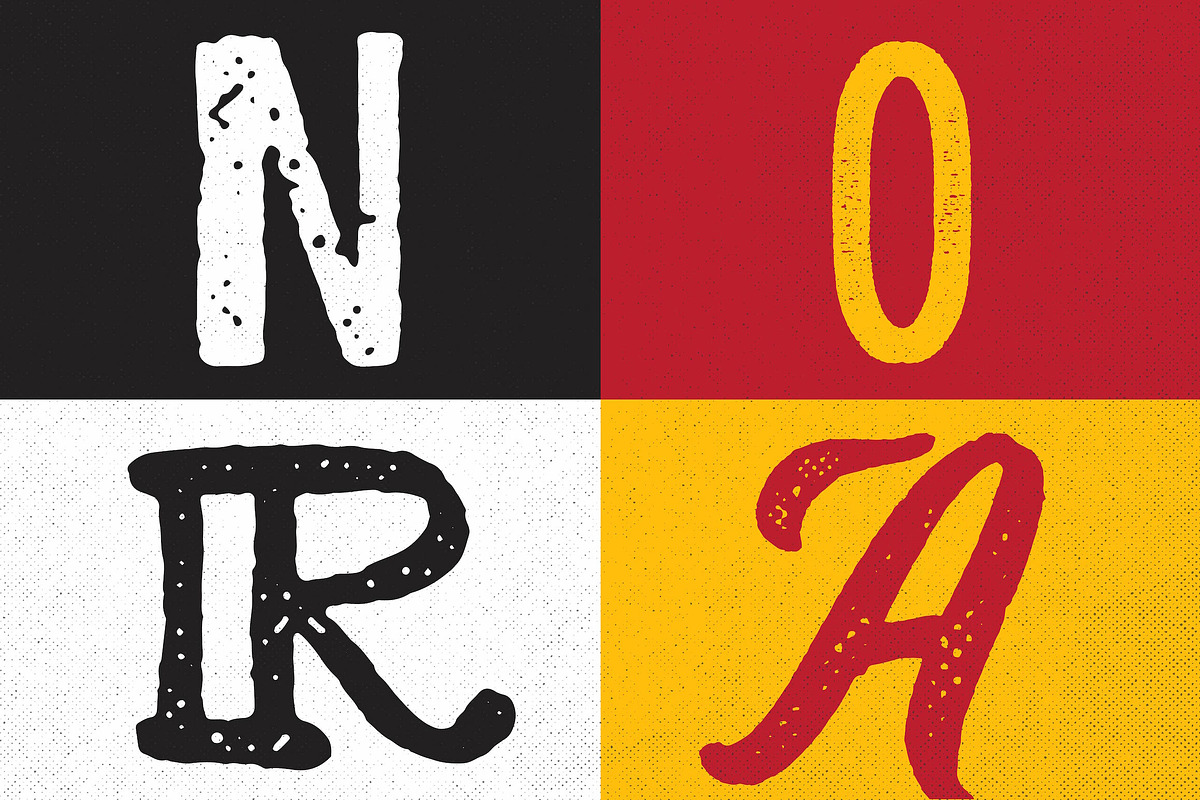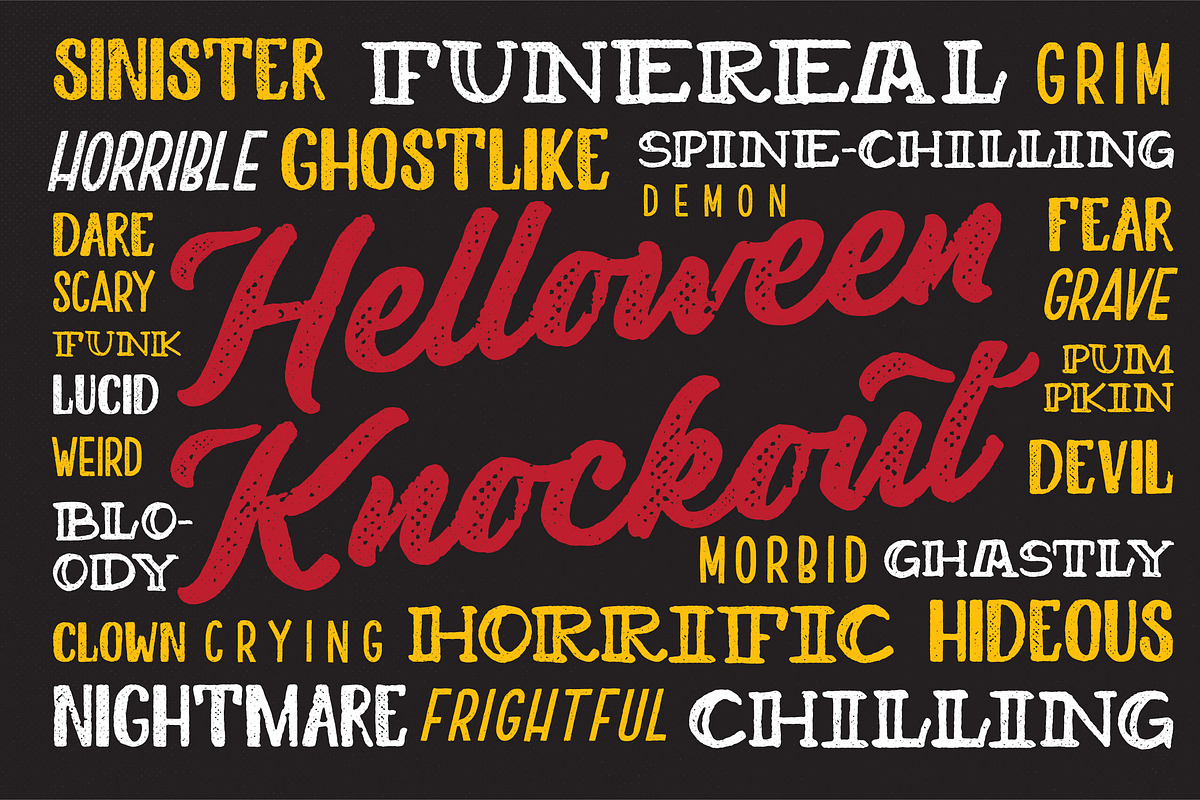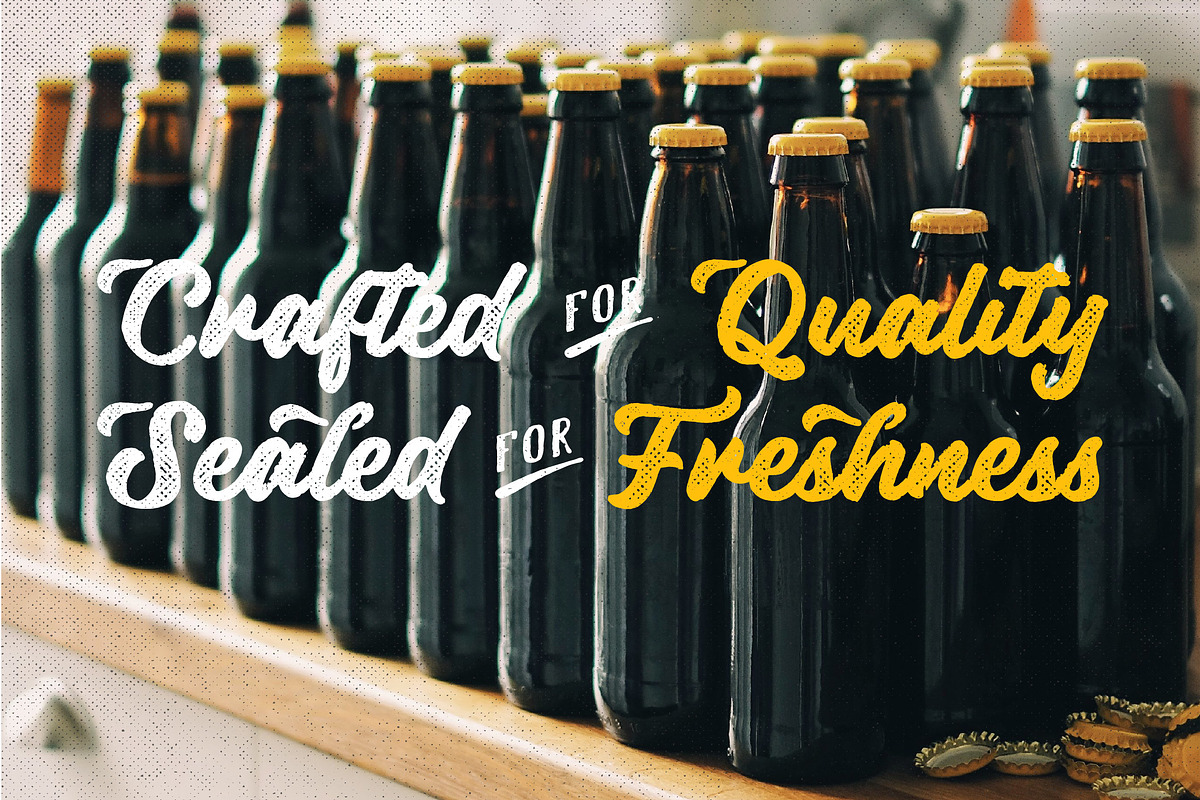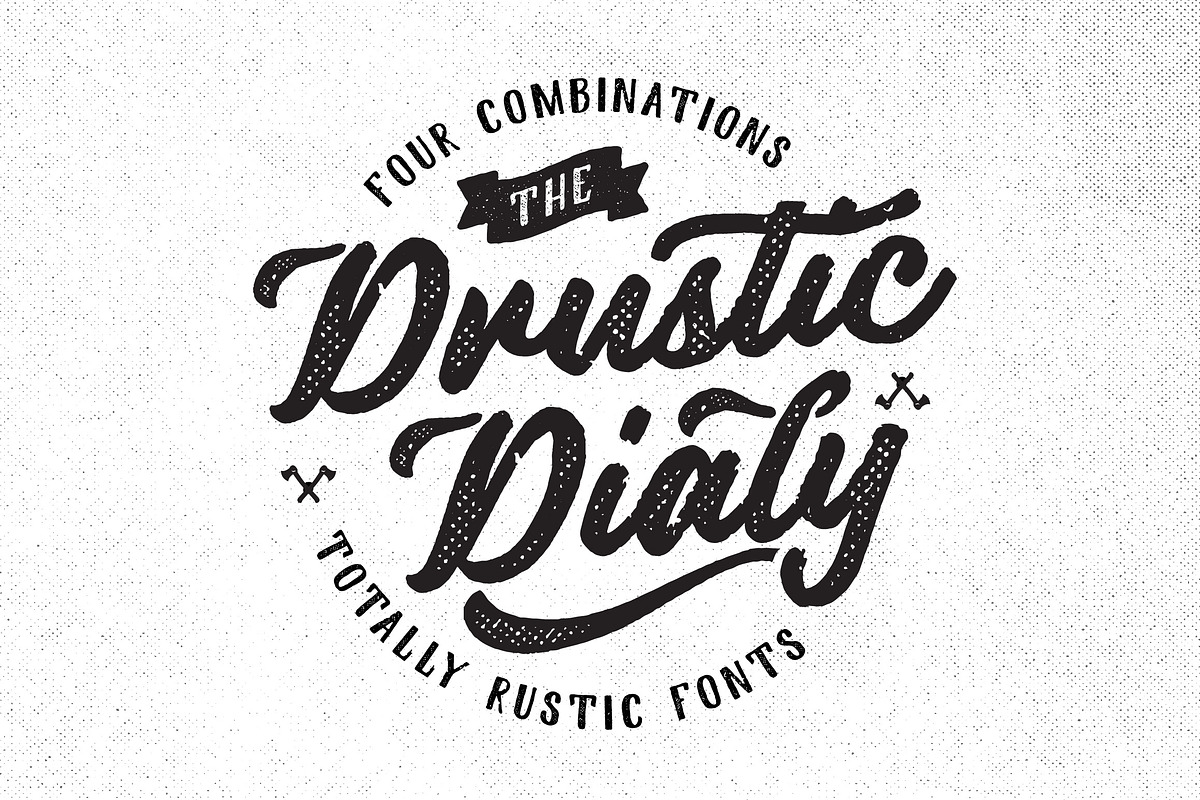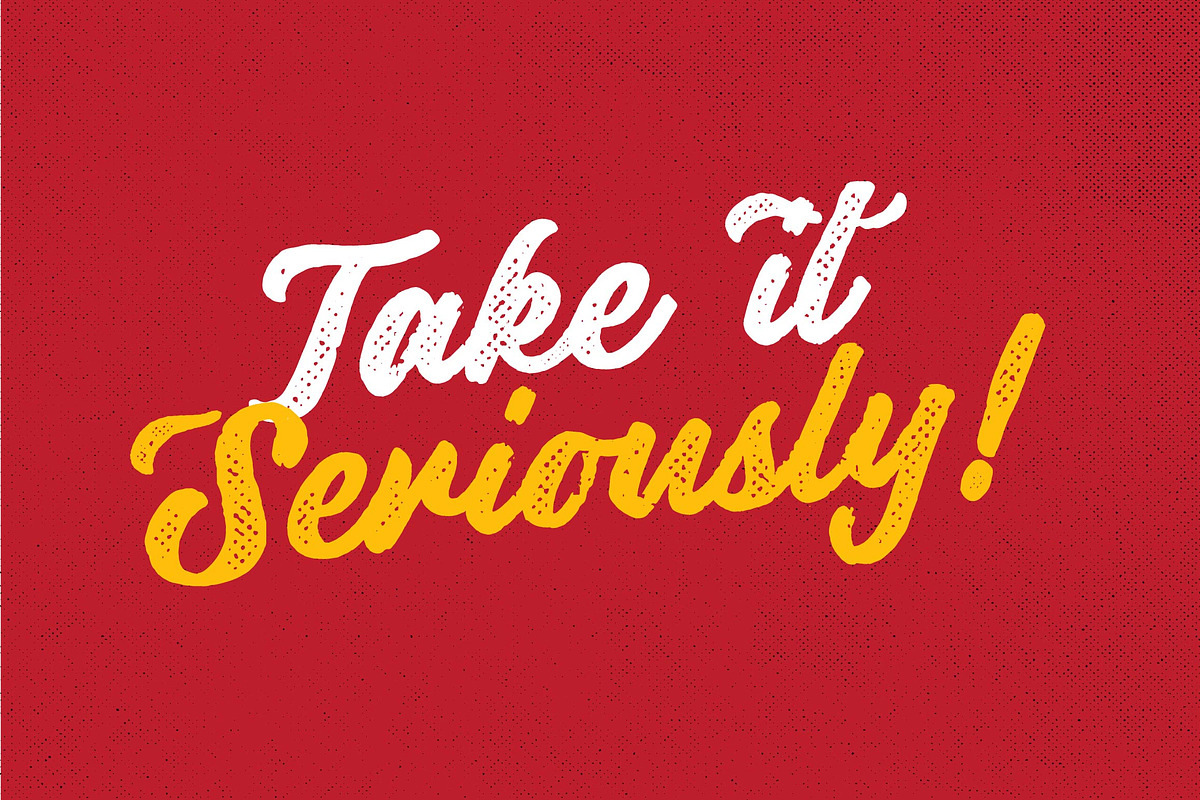
Drustic Dialy
Drustic Dialy - Four Combinations Rustic Fonts
With a lot exploring the typographic design, content, and style. Most of them are created with the combinations of the typeface. Referring to the outdoor, vintage and old style design there so many great artwork with the textured typeface. So, I in collaborations with my friend choose the styling like this, without needed to add any rough filter effect.
As on the Display, Lot of them are created with the solid background to pure showing the shape of the typeface, texture, and features. You can also check the font guidelines in the links below
The Four Combinations, helps you to create the made a pair of your typography artwork. like on the display no 7 & 8, crisp, natural, and great combinations. Comes with the Serif Style, Sans Style, Condensed (also in italic), Script (Original and Halftoned texture) and the last is Catchword for complete the small pieces of artwork.
The Features : Sans, Serif, Condensed, and Catchword are have standard features like full the Alphabetical Letters with the number and punctuations indeed. Except the Script, This script have a special features on Contextual Alternates (stops lowercase letter after space), stylistic alternates, ligatures, and initial and terminal.